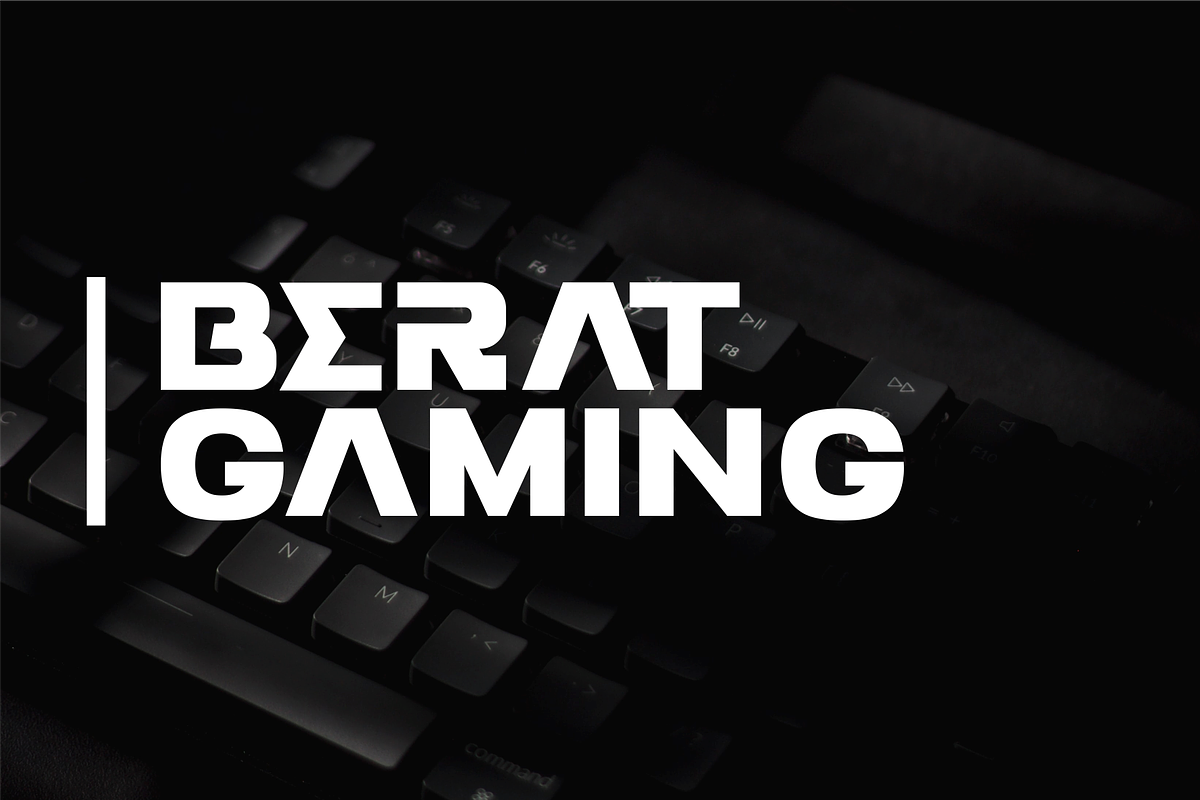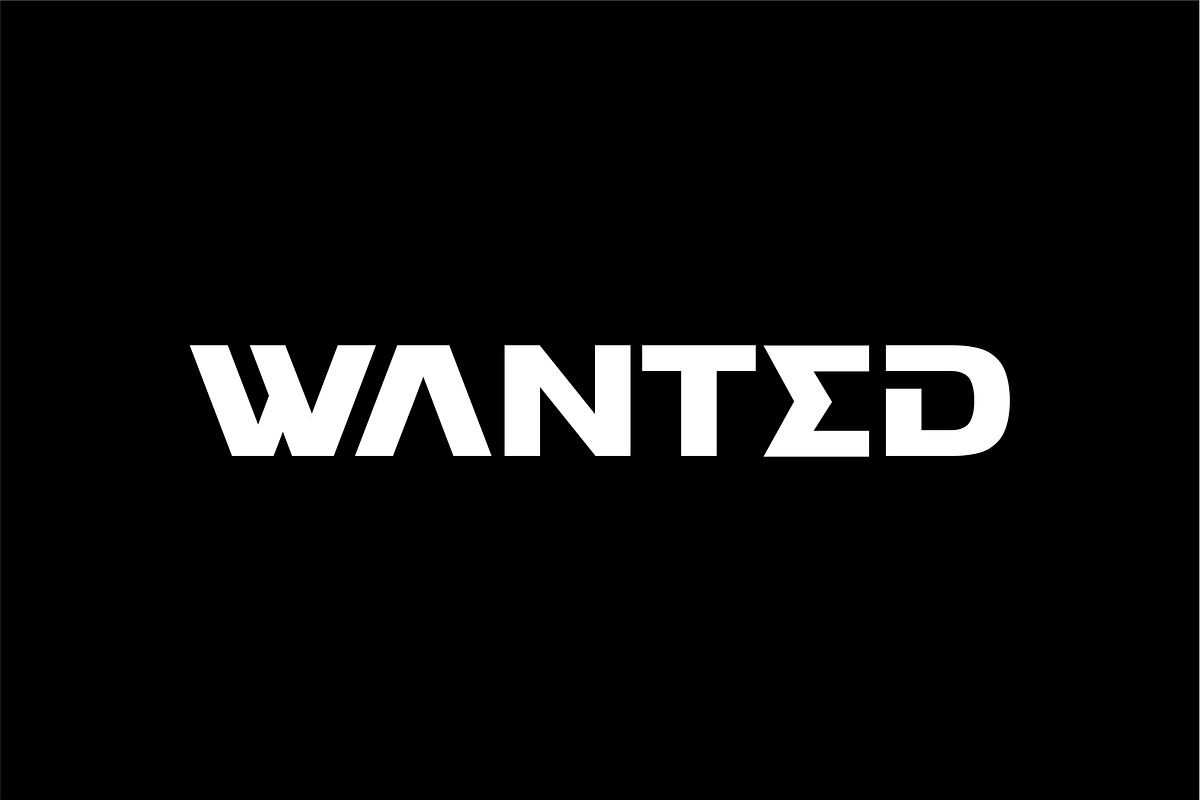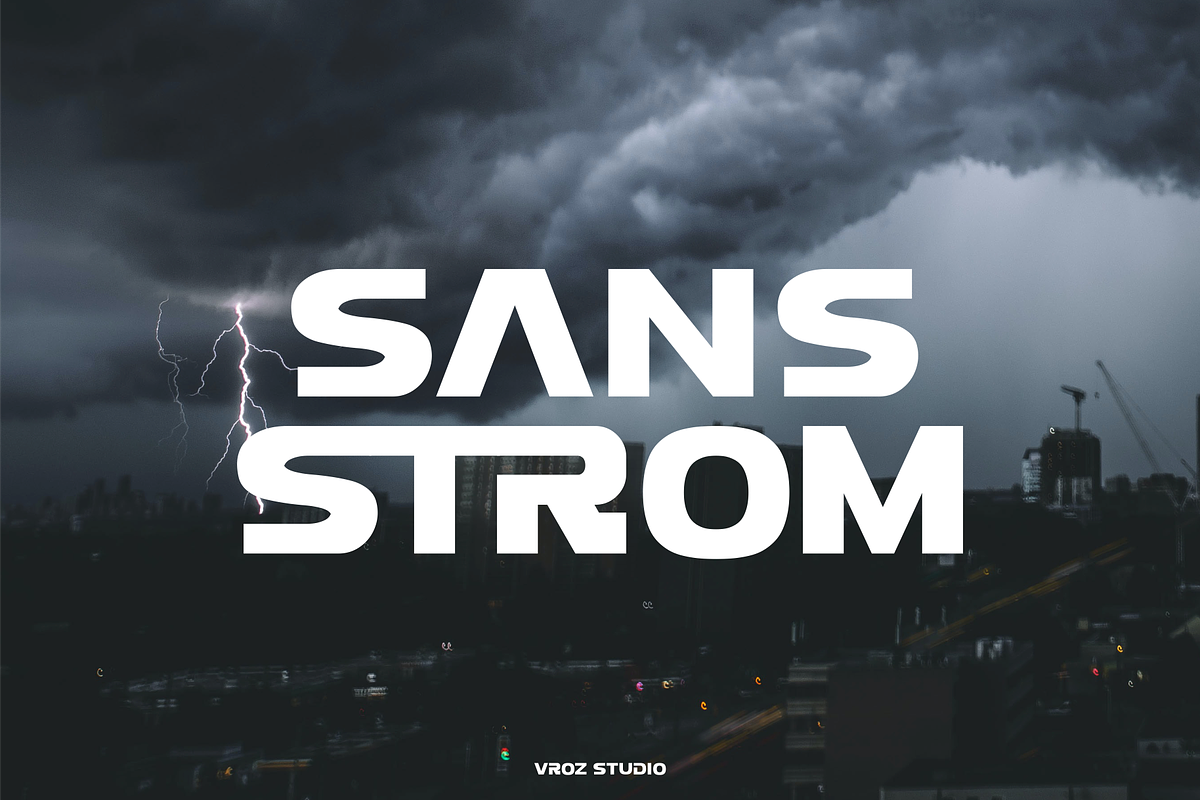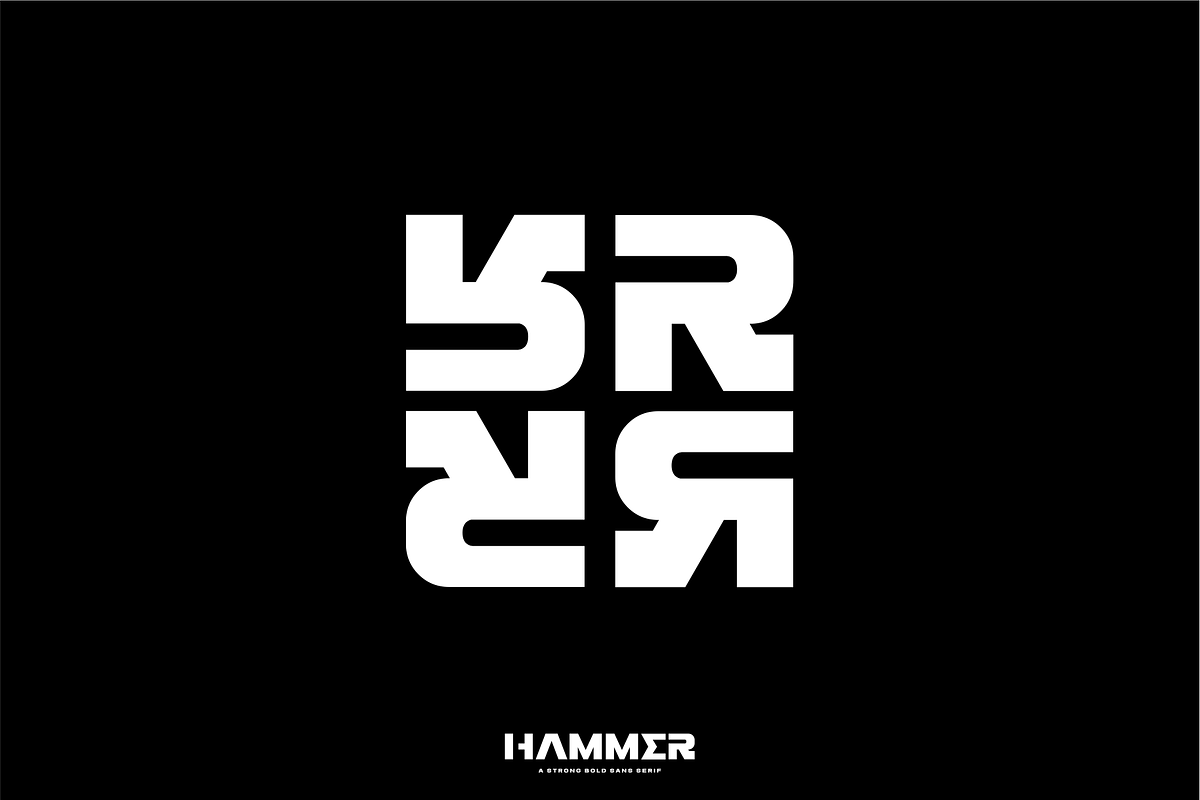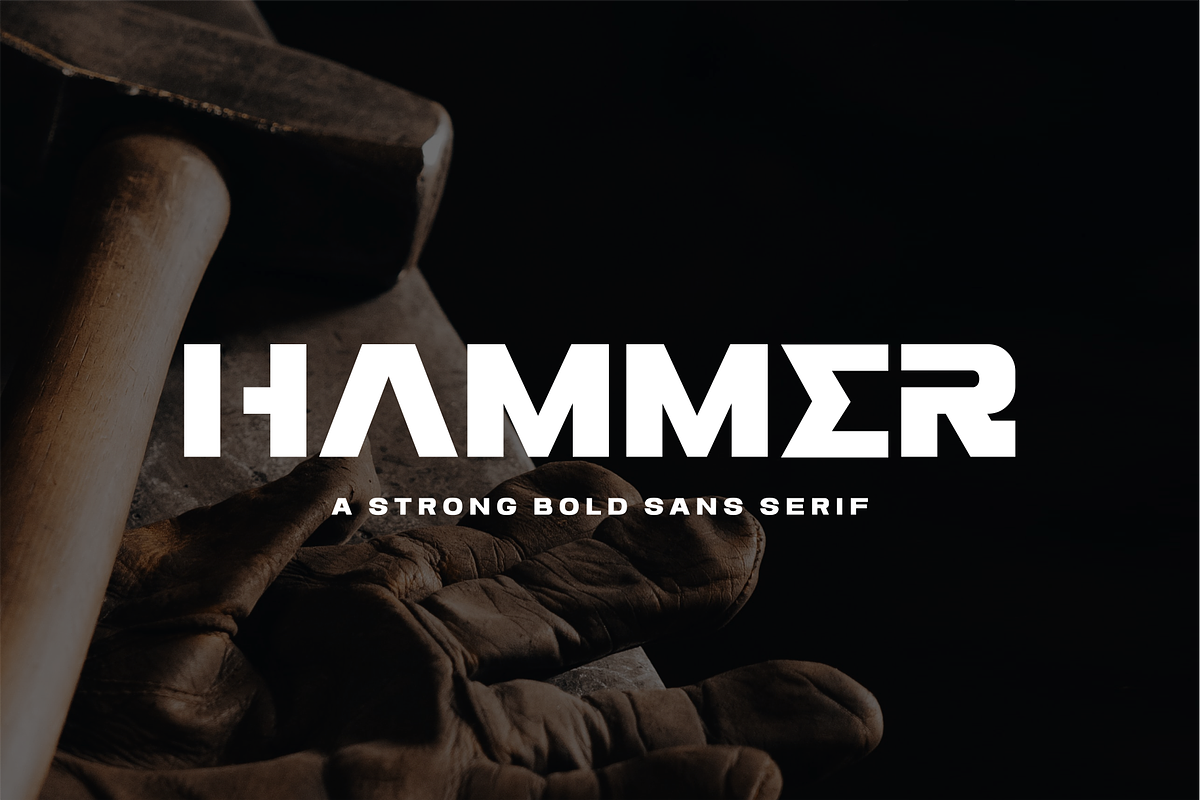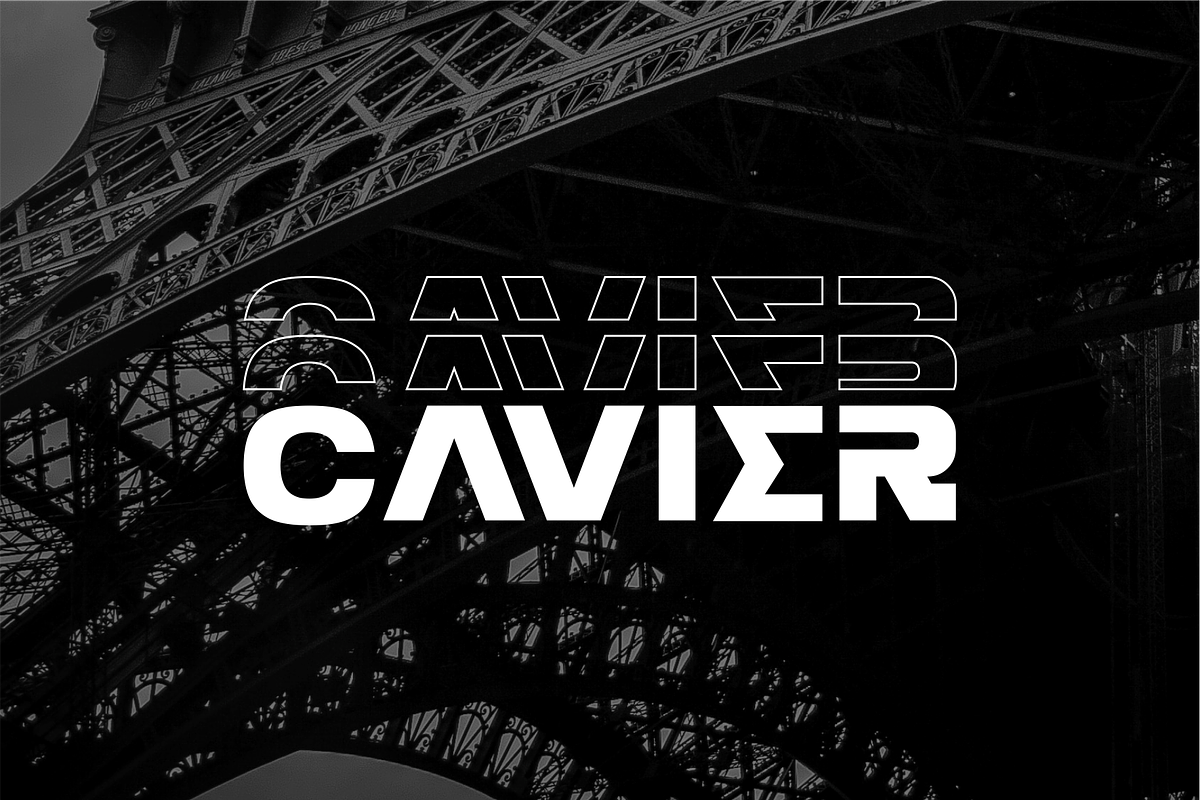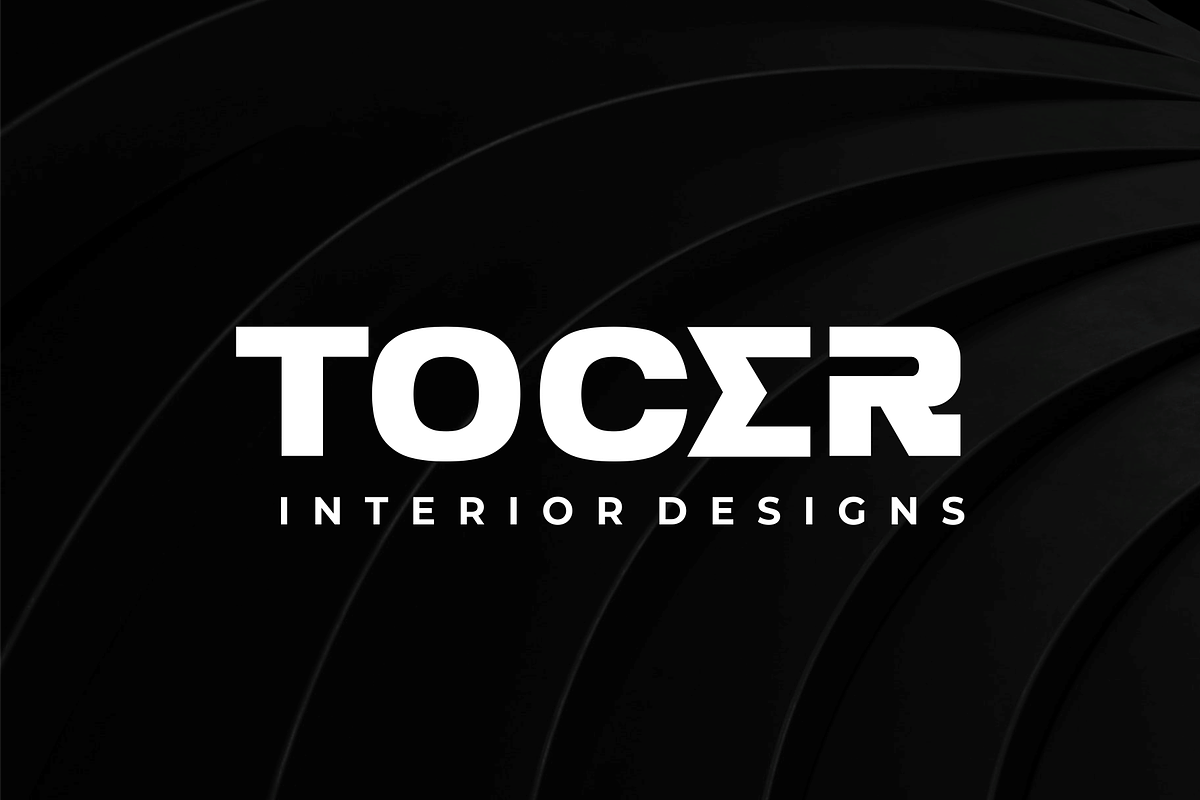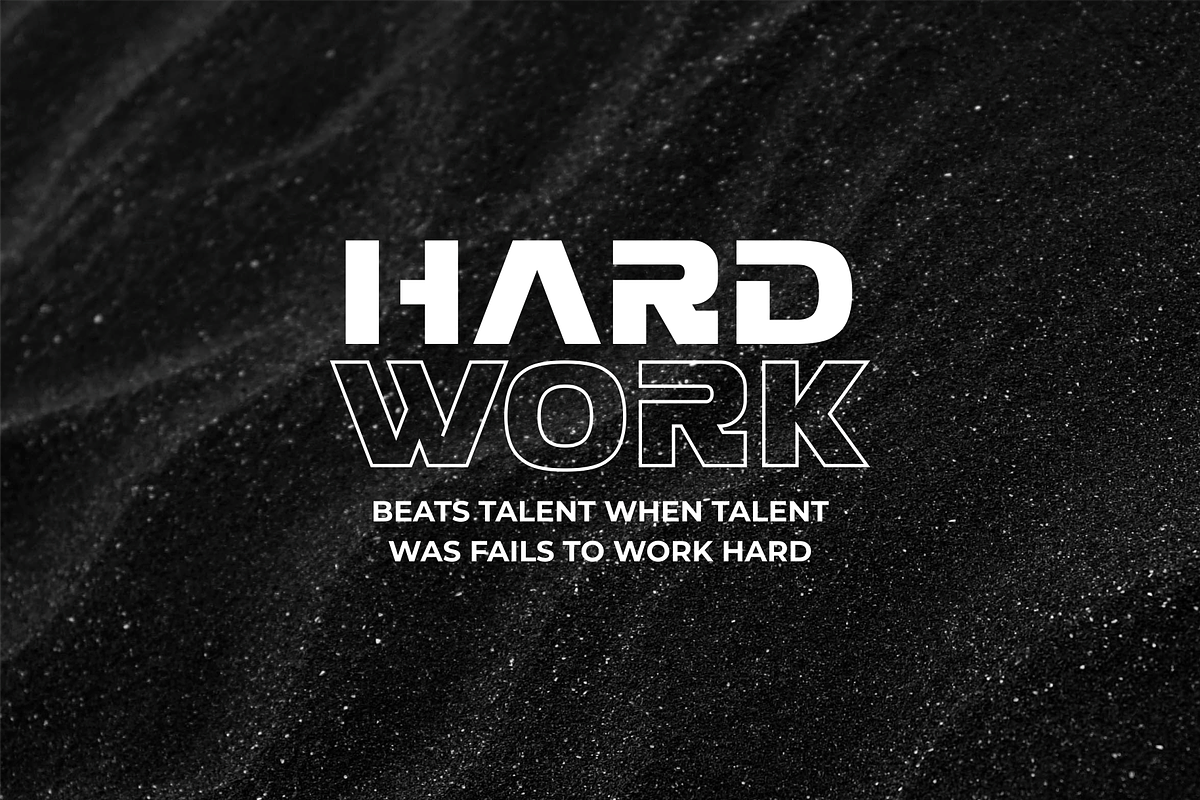
HAMMER - a strong bold sans serif
HAMMER - a strong bold sans serif, perfect for many project: fashion, magazines, logo, branding, photography, quotes, blog header, poster, advertisements, postcard, book, websites,adventure, esport, sport etc.